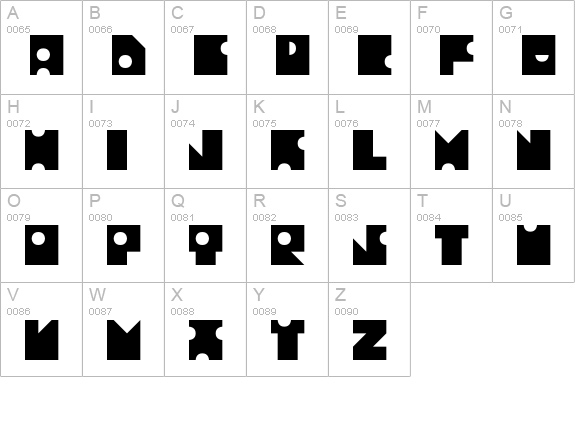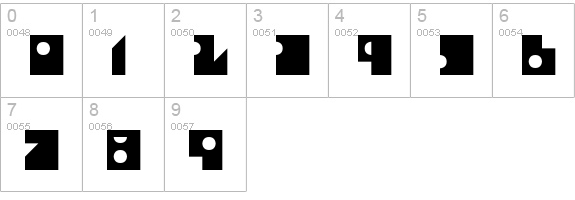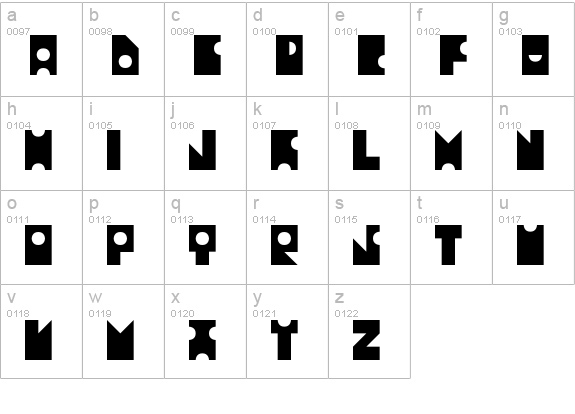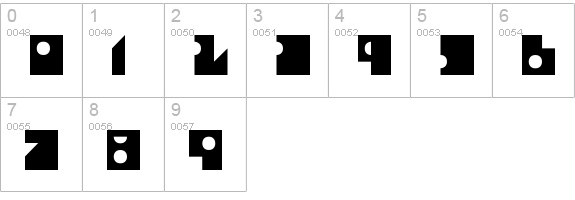
Introducing TPF Lor, a stunning and versatile font that is sure to capture your attention. With its captivating elegance and timeless appeal, TPF Lor is the perfect choice for any design project that requires a touch of sophistication. This incredible font showcases a harmonious balance between modernity and classic charm. Its sleek and clean lines exude a sense of professionalism, making it ideal for corporate materials, logos, branding, and more. Whether used in print or digital media, TPF Lor effortlessly commands attention and adds a touch of refinement to any composition. But what sets TPF Lor apart from other fonts? Well, the answer lies in its exceptional features. TPF Lor boasts a vast range of characters, including uppercase and lowercase letters, numerals, punctuation marks, and special symbols. This extensive character set ensures that you will always find the perfect combination to express your creative vision. And here's the best part: TPF Lor is absolutely free! Yes, that's right. This extraordinary font is freely available to download at FontsMarket.com. Now you can enjoy the beauty and versatility of TPF Lor without breaking the bank. So, whether you're a professional designer, a student working on a project, or simply someone with a passion for typography, TPF Lor is a must-have addition to your font collection. Download it today from FontsMarket.com and unlock a world of endless possibilities. Embrace the elegance, embrace the freedom – TPF Lor is here to elevate your designs to new heights.